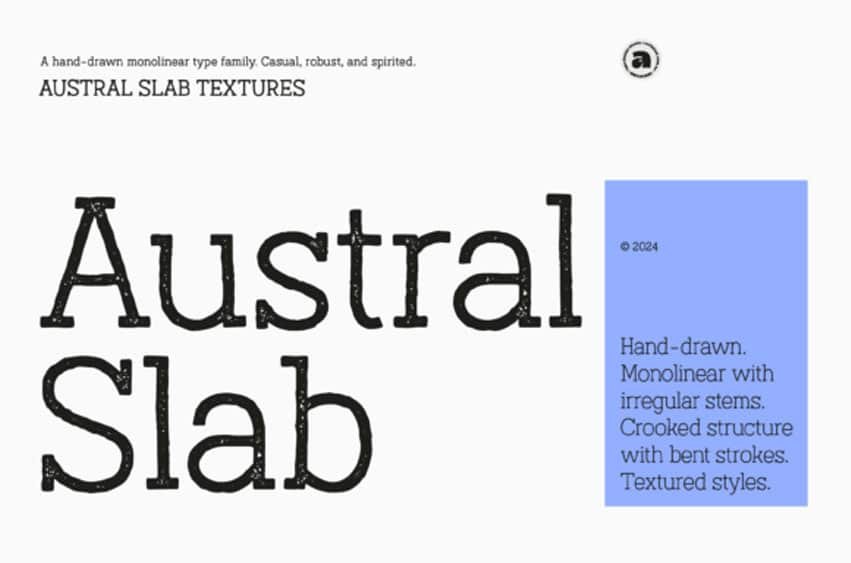
Austral Slab Textures Font is a hand-drawn layered type family. It is casual, robust, and spirited. It is monolinear in spirit, despite having irregular stems that give the fonts an eroded effect (particularly exaggerated in the Medium styles). It was originally released in 2016, and in 2024 updated with version 2.000 that includes a new weight distribution and clean no-textured fonts, major updates on glyph support, OpenType features, corrections on the design of specific characters, and more.
The textures available are Blur, Rough, Rust, and Stamp, and the layered styles are Maplines and Spots. ‘Blur’ is a softened style with round and heavy swelling at intersections. ‘Rough’ has solid irregular contours. ‘Rust’ has a deteriorated texture over the glyphs. ‘Stamp’ has the appearance of a print that didn’t get enough ink. ‘Maplines’ is uniquely filled with topographic map-like lines.
Austral Slab has three sets of alphabets that slightly differ. These sequentially alternate to avoid repeating the same textured letterforms, having a more realistic irregular result. The Contextual Alternates feature is available in all the styles of this type family.